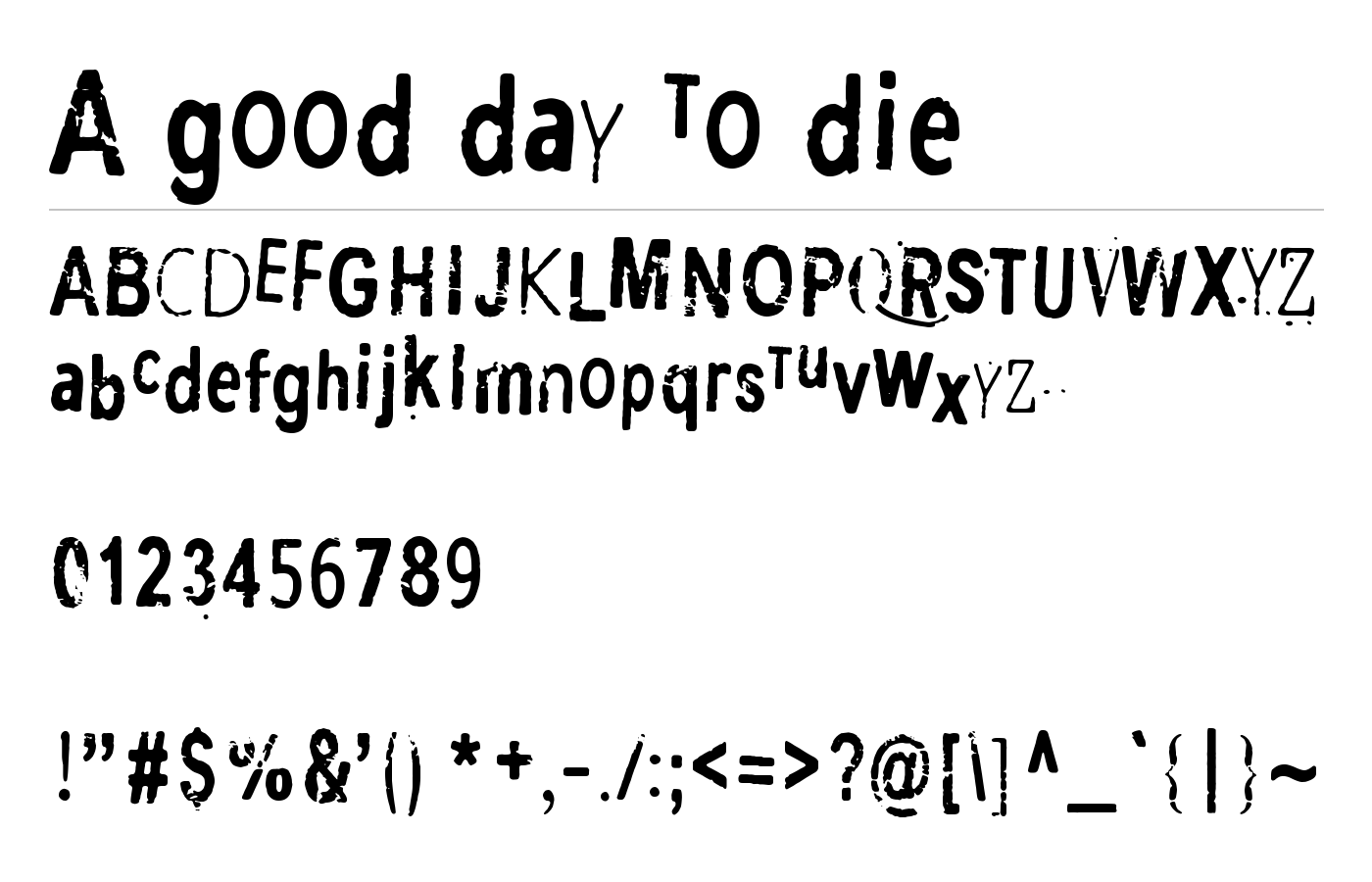
"A good day to die" is a distressed, sans serif display font with a textured, worn appearance that gives it a strong vintage or grunge vibe. Its uneven stroke weight and irregular character shapes create a bold yet rugged personality, making it ideal for edgy, expressive designs like posters, album covers, or branding that seeks an authentic, rebellious feel. This font stands out in headlines or short impactful text where its rough charm can be fully appreciated.
A good day to die Font
About A good day to die Font
| Font family | A good day to die Font |